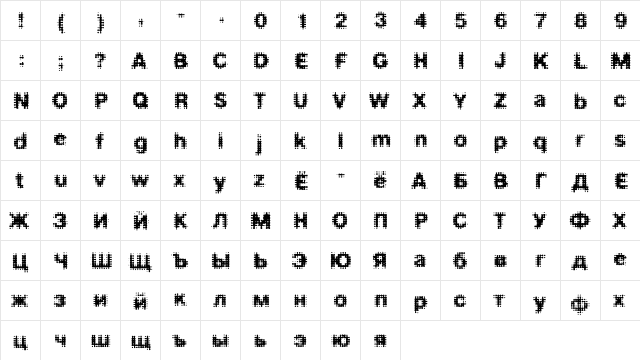
FDMedian Regular
Design Context for FDMedian Typeface
FDMedian takes a measured approach to typography — its balanced proportions and neutral character make it a reliable workhorse for both digital and print work.